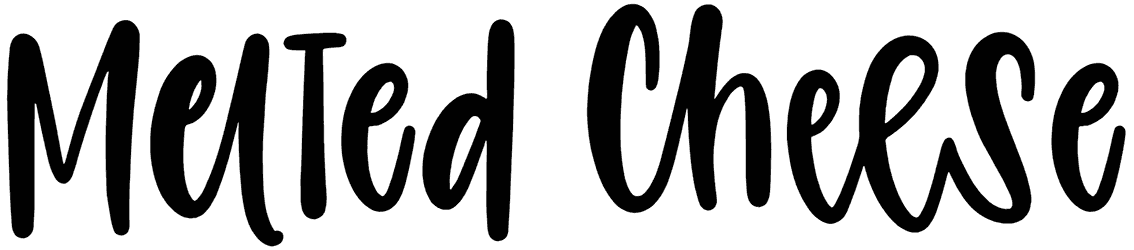
Melted Cheese Font
With its hand-drawn lines and artistic talent, the Melted Cheese font adds a touch of romance and sophistication to any design. This script font can create a rhythm that is captivating and mesmerizing.
So it’s perfect for wedding invitations, heartfelt greetings, and anything that needs elegance. Due to its almost poetic quality, this cheese font is a favorite among designers who want to convey a sense of timeless beauty. So, consider Melted Cheese to bring artistry and elegance to your next project.